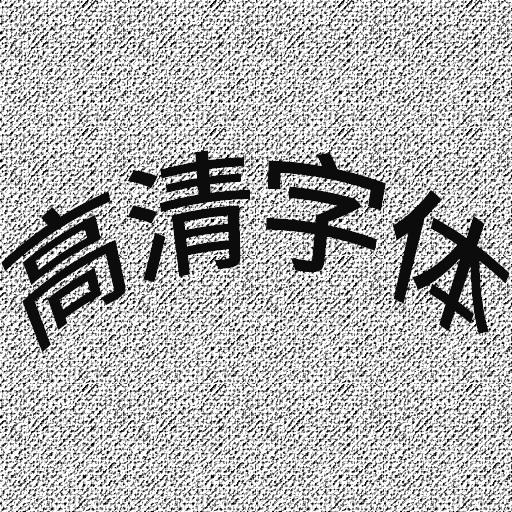
Chinese Font
Enhance Your Don’t Starve Together Experience with a Clearer Chinese Font Mod
Navigating the harsh and unforgiving wilderness of Don’t Starve Together can be a challenging endeavor, especially when visual clarity is paramount. For players who prefer or require a larger, more readable Chinese font, a dedicated mod can transform your gameplay experience. This modification addresses a common frustration by providing a significantly improved font solution, ensuring that crucial in-game text is easily discernible, even during the most chaotic moments.
Say Goodbye to Tiny Text
Many players have encountered the issue of small, difficult-to-read fallback fonts within Don’t Starve Together. This can be particularly problematic for Chinese characters, where subtle details can be lost at smaller sizes, potentially hindering comprehension of vital information, crafting recipes, or survival tips. This mod directly tackles this problem by implementing larger, more prominent Chinese characters, making the game more accessible and enjoyable for a wider audience.
Key Features of the Chinese Font Mod:
- Larger, more legible Chinese characters designed for improved readability.
- Seamless integration into the Don’t Starve Together interface.
- Reduced visual strain, allowing for longer and more comfortable play sessions.
- Ensures critical in-game text is easily understood, enhancing the survival experience.
- A simple yet effective enhancement for Chinese-speaking players.
A Welcome Improvement for All
Whether you’re a seasoned survivor or new to the Constant, the ability to clearly read all in-game text is fundamental. This Chinese Font mod for Don’t Starve Together is a testament to how small, focused modifications can have a significant impact on the overall quality of life within the game. By ensuring that every character is sharp and easily identifiable, players can focus more on strategic survival and less on deciphering tiny letters. It’s a straightforward enhancement that makes the world of Don’t Starve Together that much more inviting.